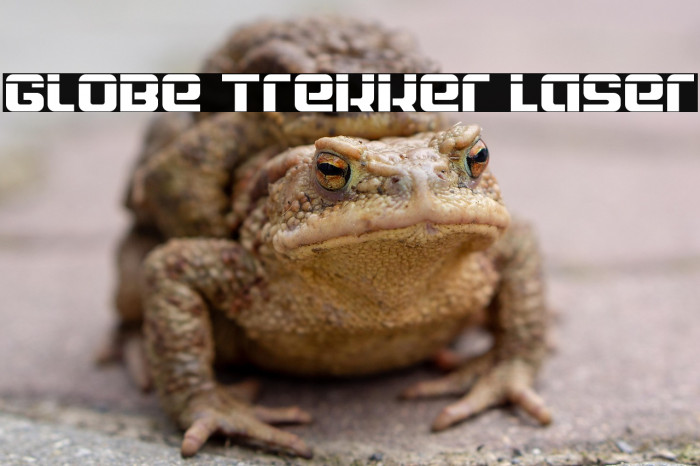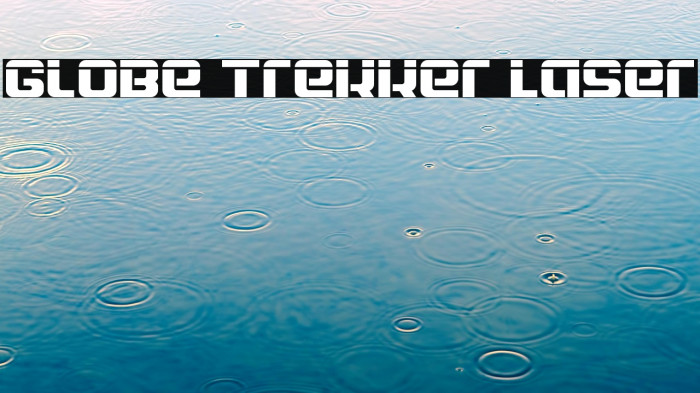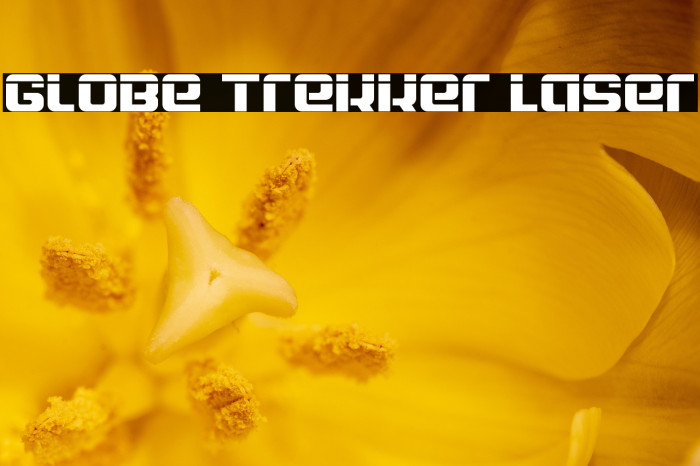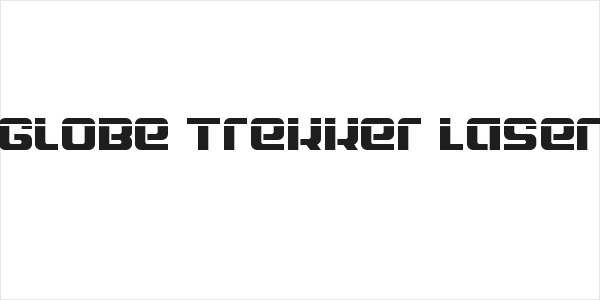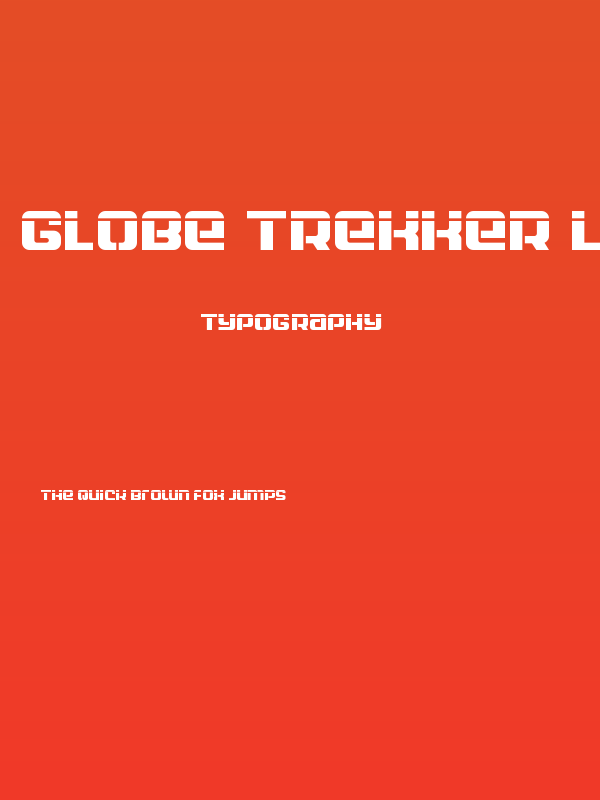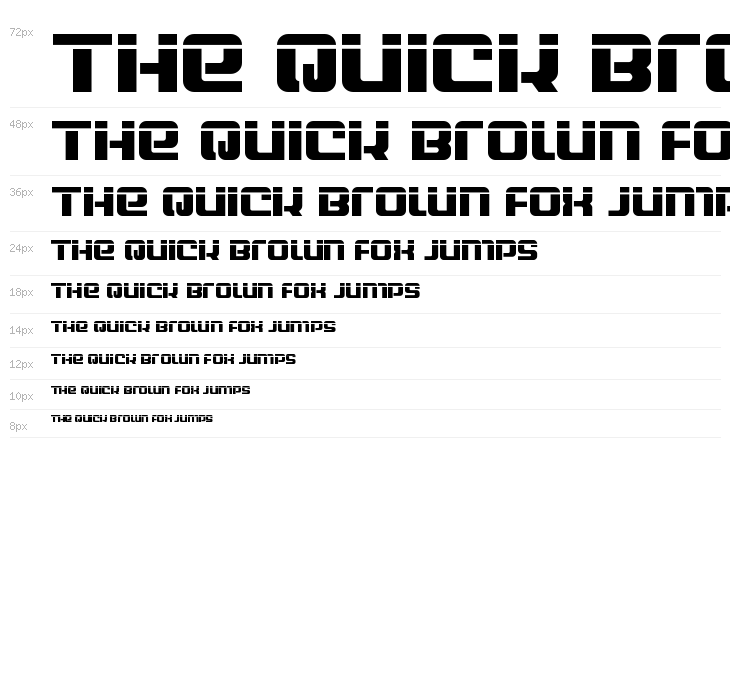
Globe Trekker Laser Font
Globe Trekker Laser Description
This font features a bold, futuristic design with geometric shapes and sharp angles. The characters are constructed with a blocky, stencil-like appearance, giving it a modern and industrial feel. The uppercase and lowercase letters maintain a consistent style, with distinct cutouts and a strong visual impact. The numbers and special characters follow the same design principles, ensuring uniformity across all glyphs. The font's unique style makes it stand out, suitable for projects that require a bold and assertive typeface.
| Proposed Projects | Ideal for sci-fi themed designs, technology branding, video game titles, and futuristic posters. |